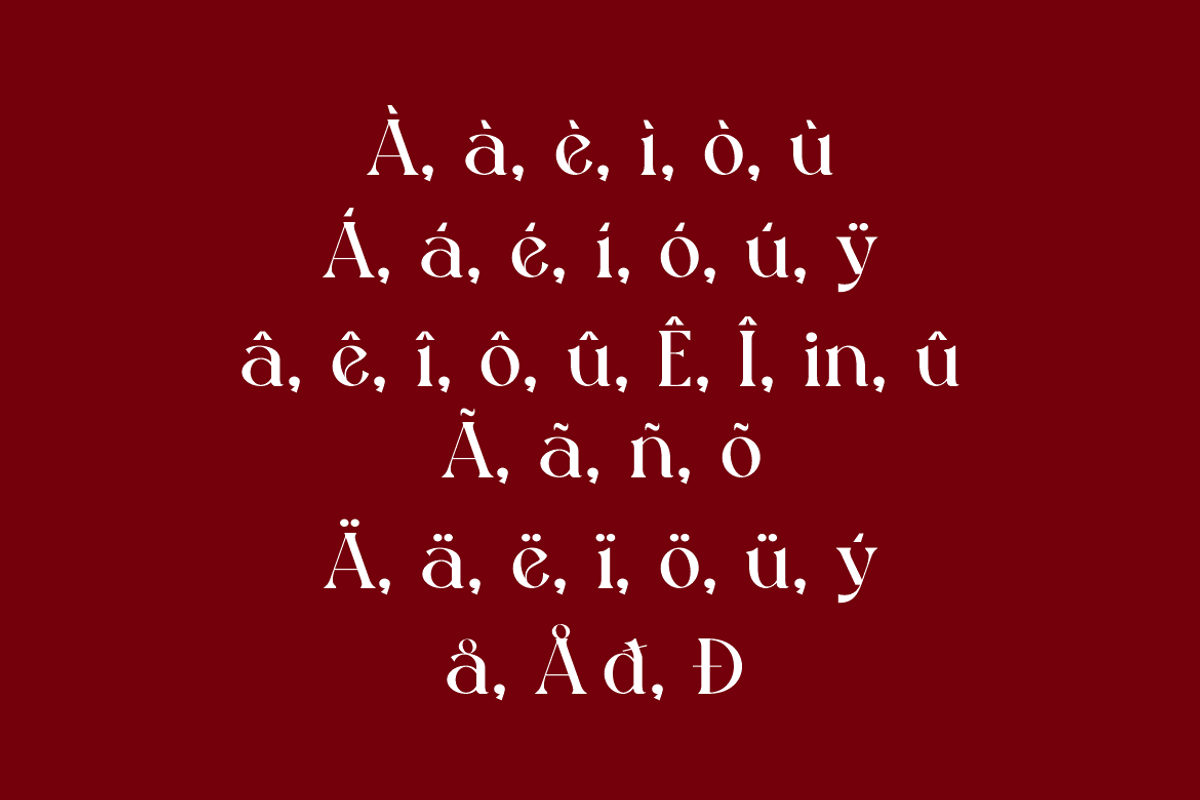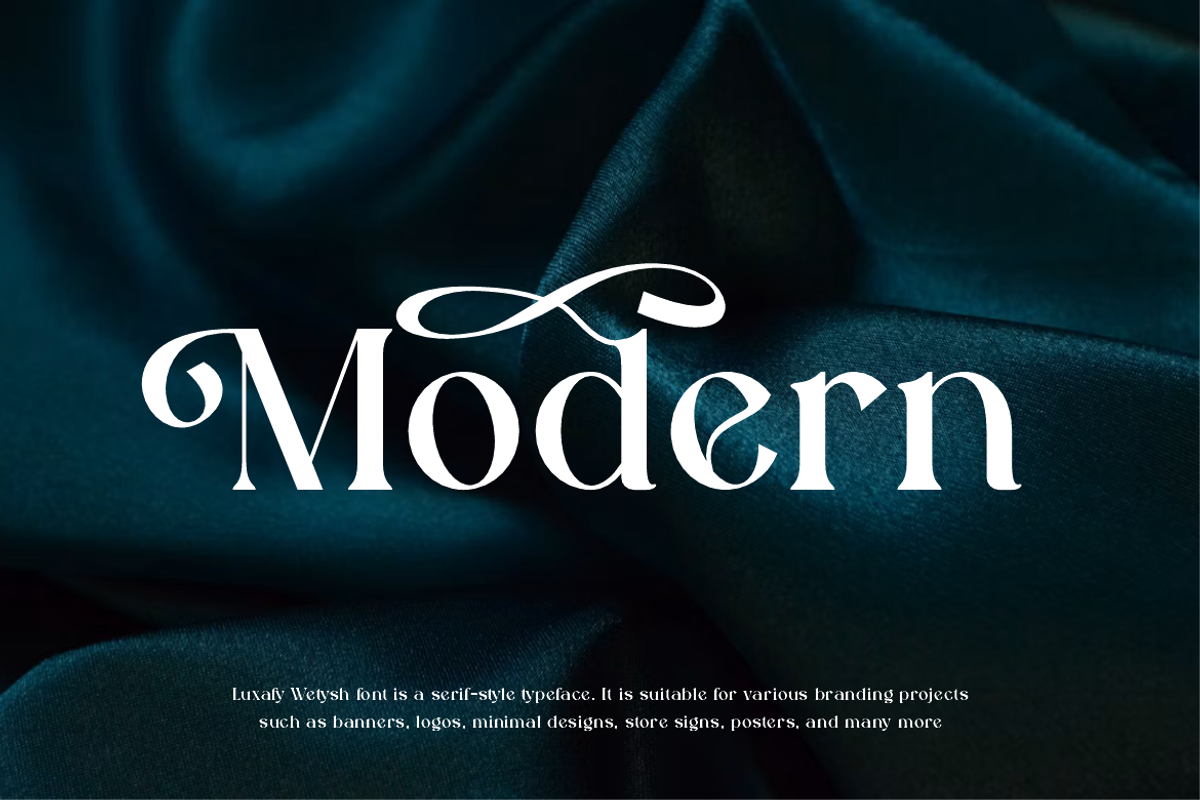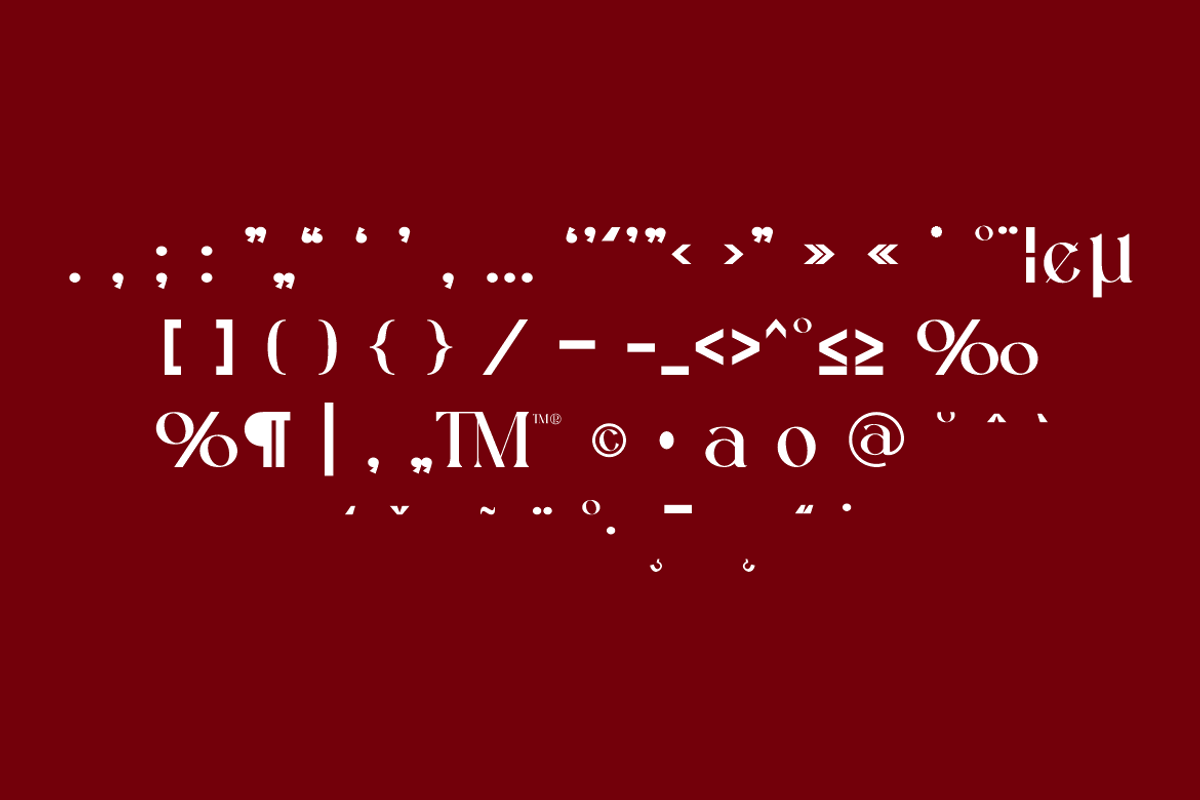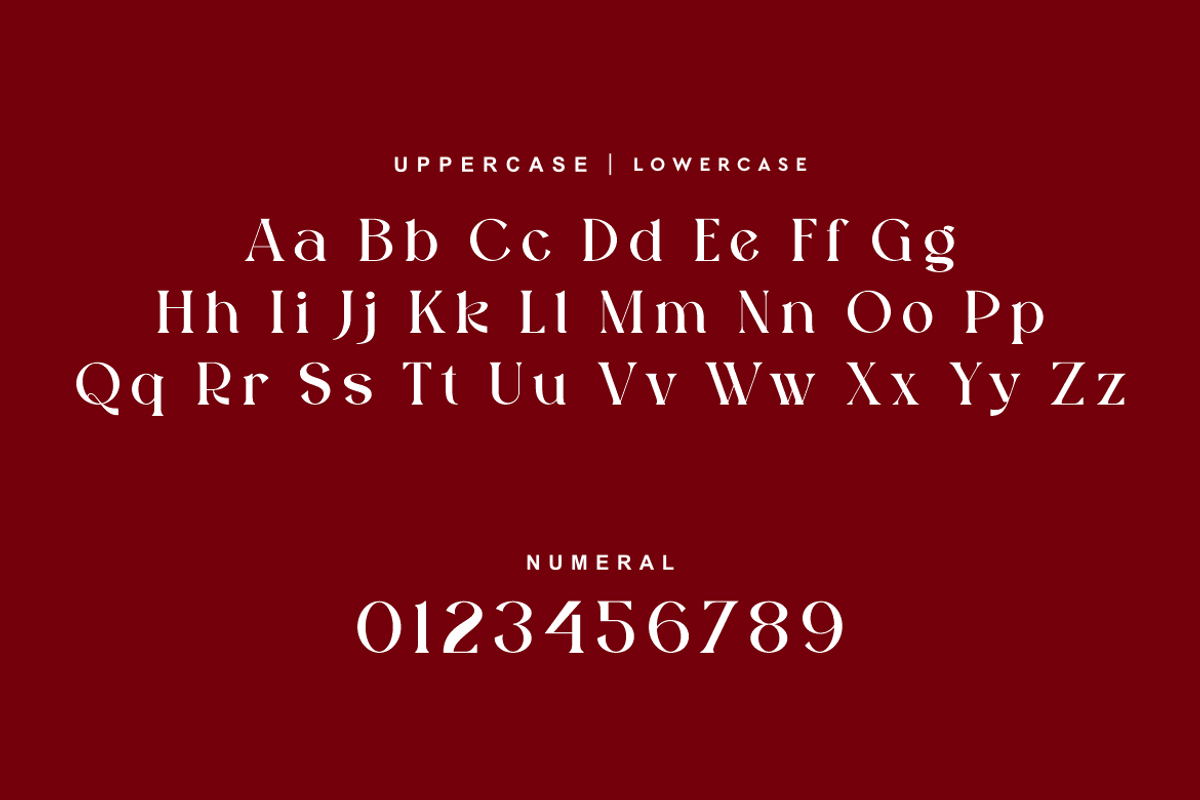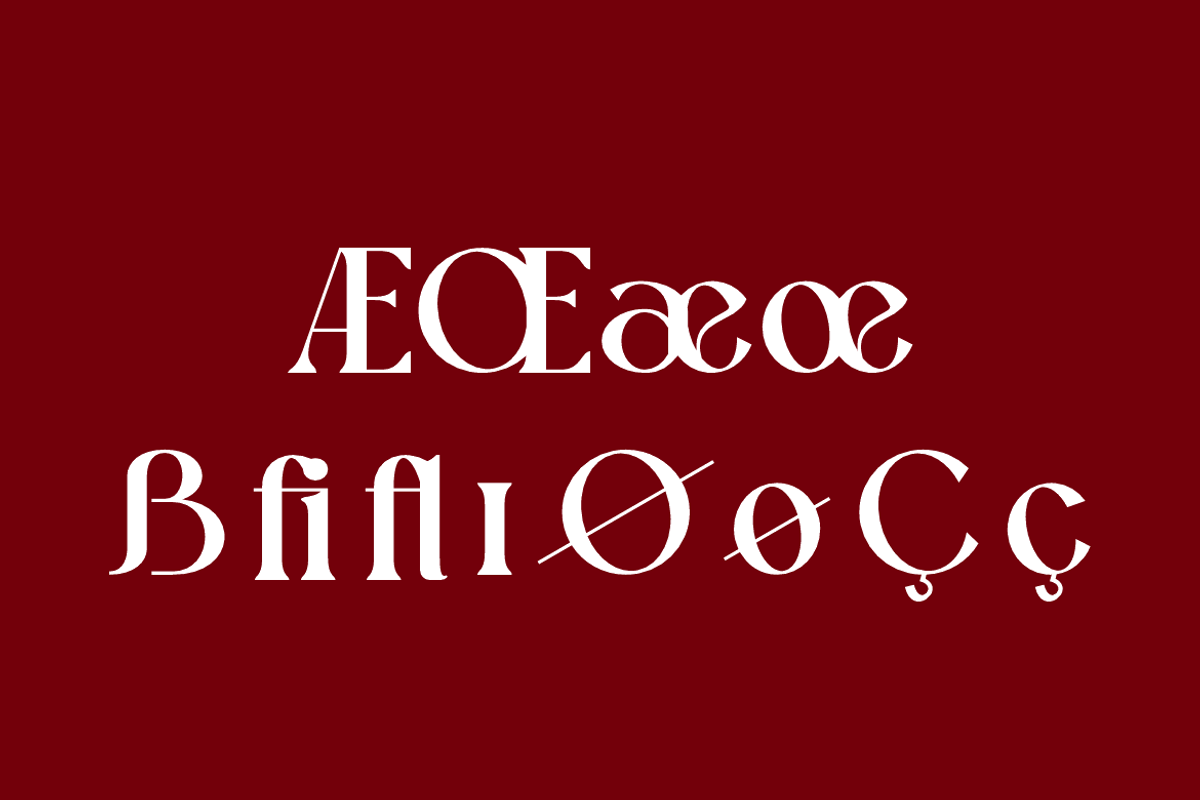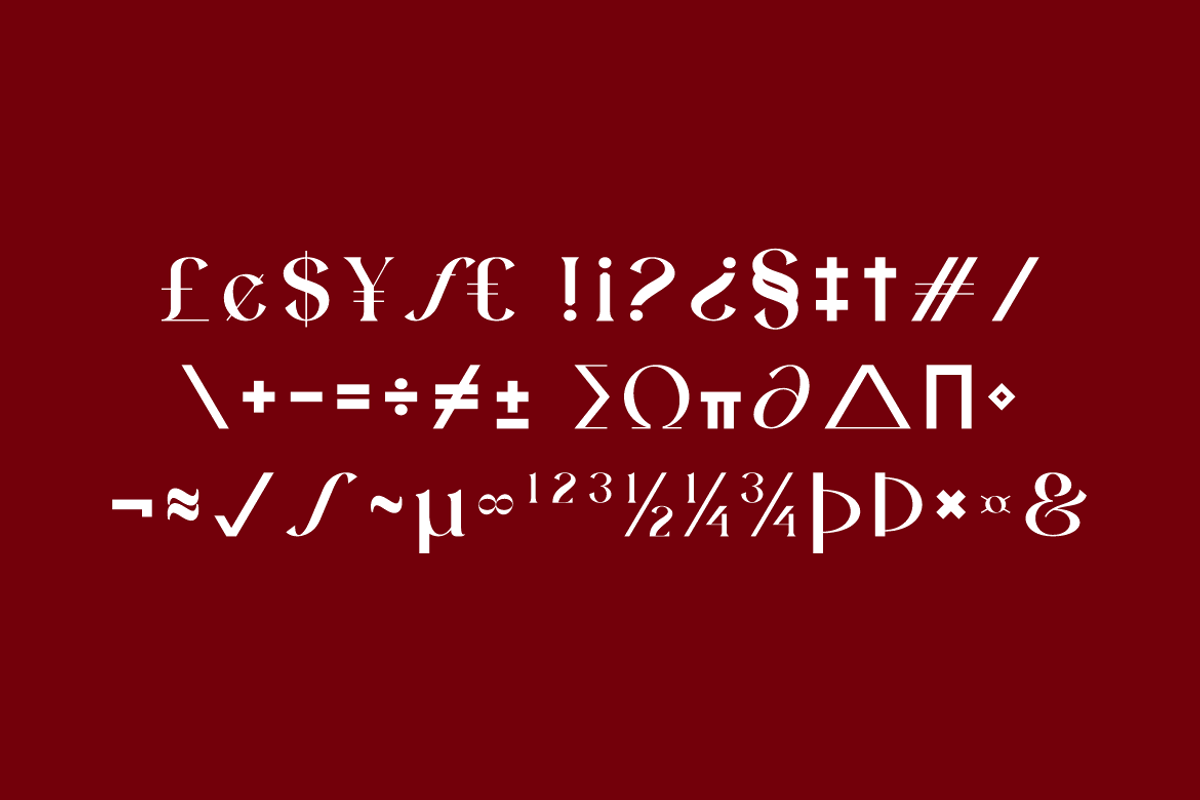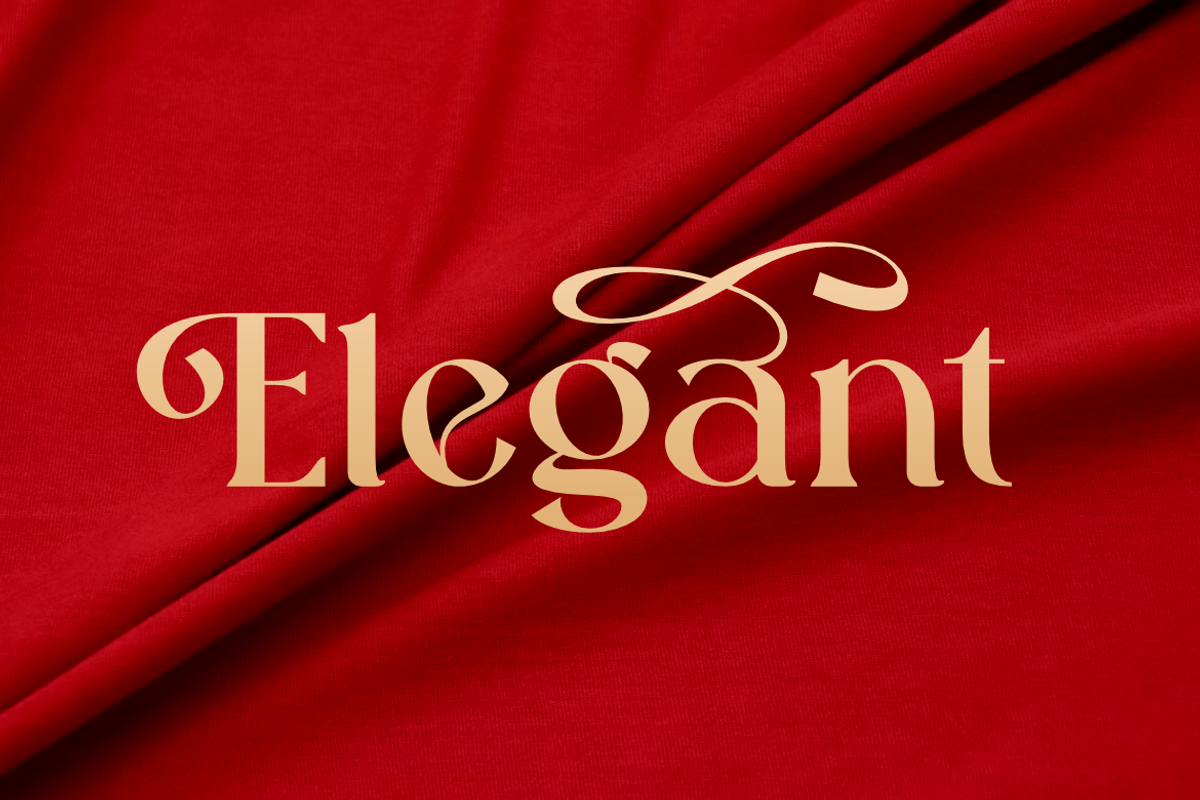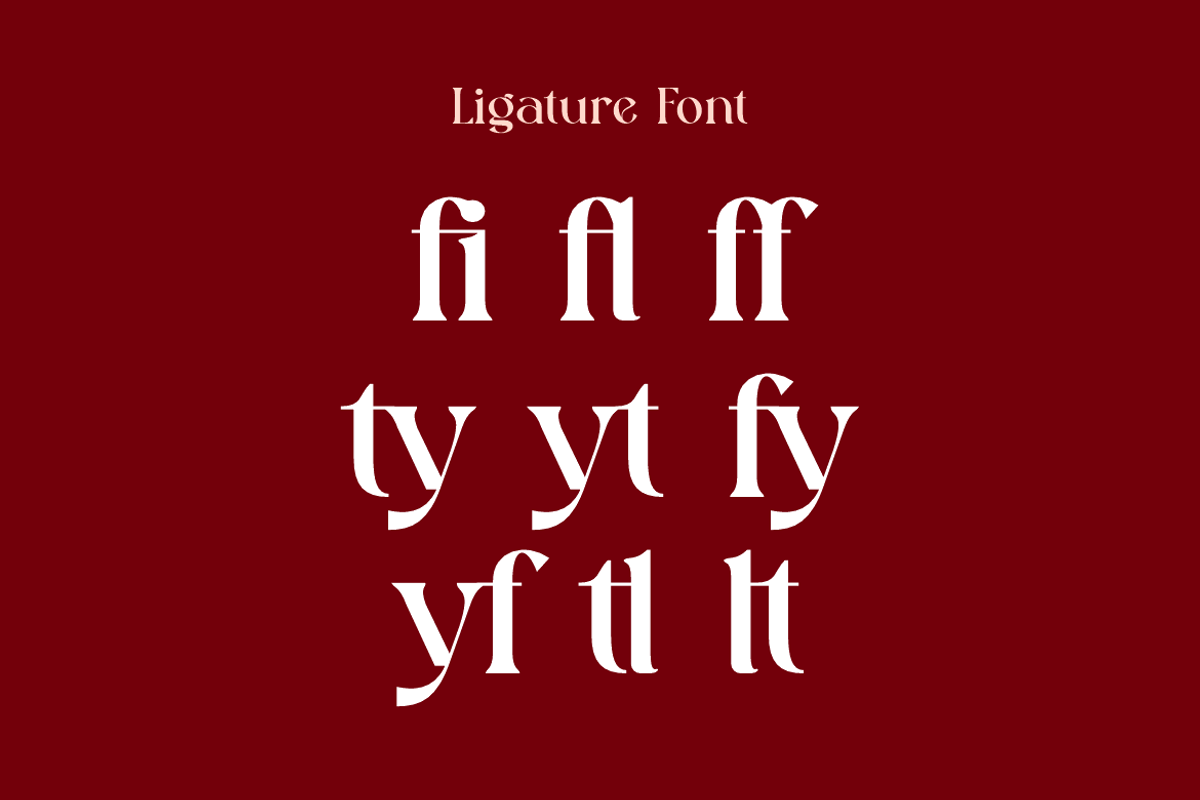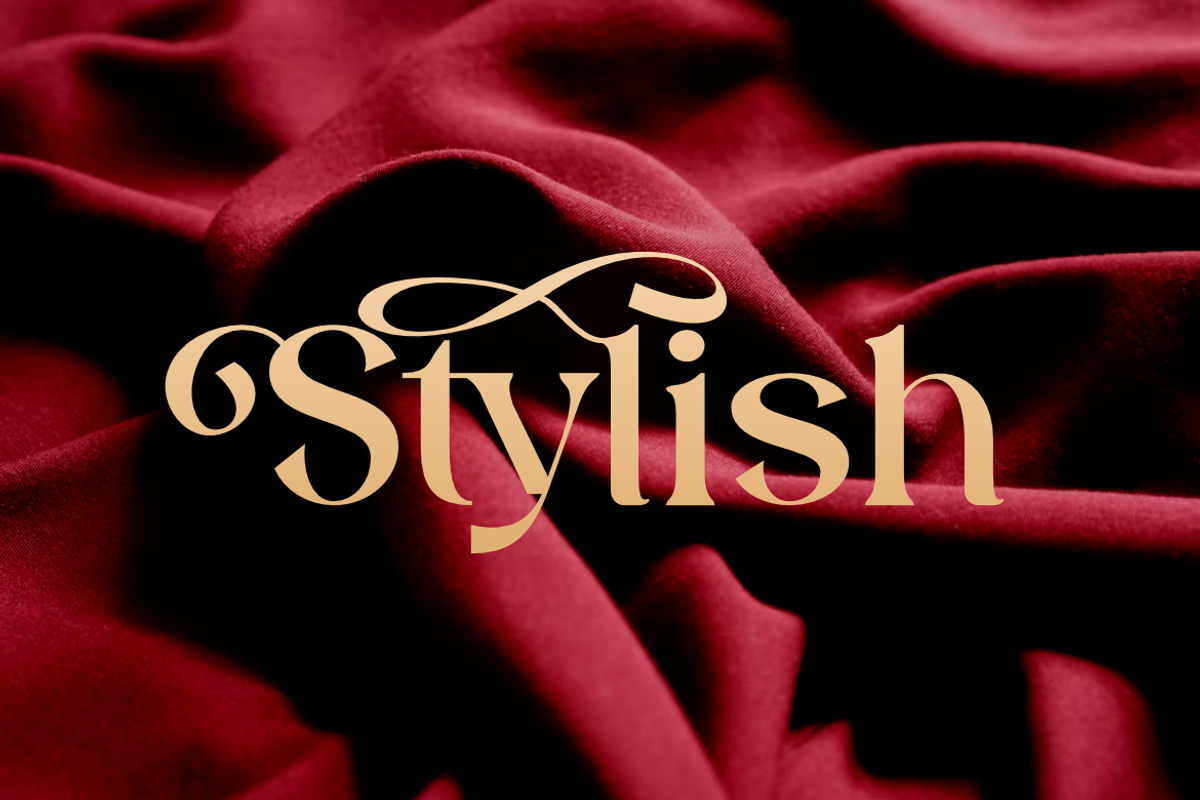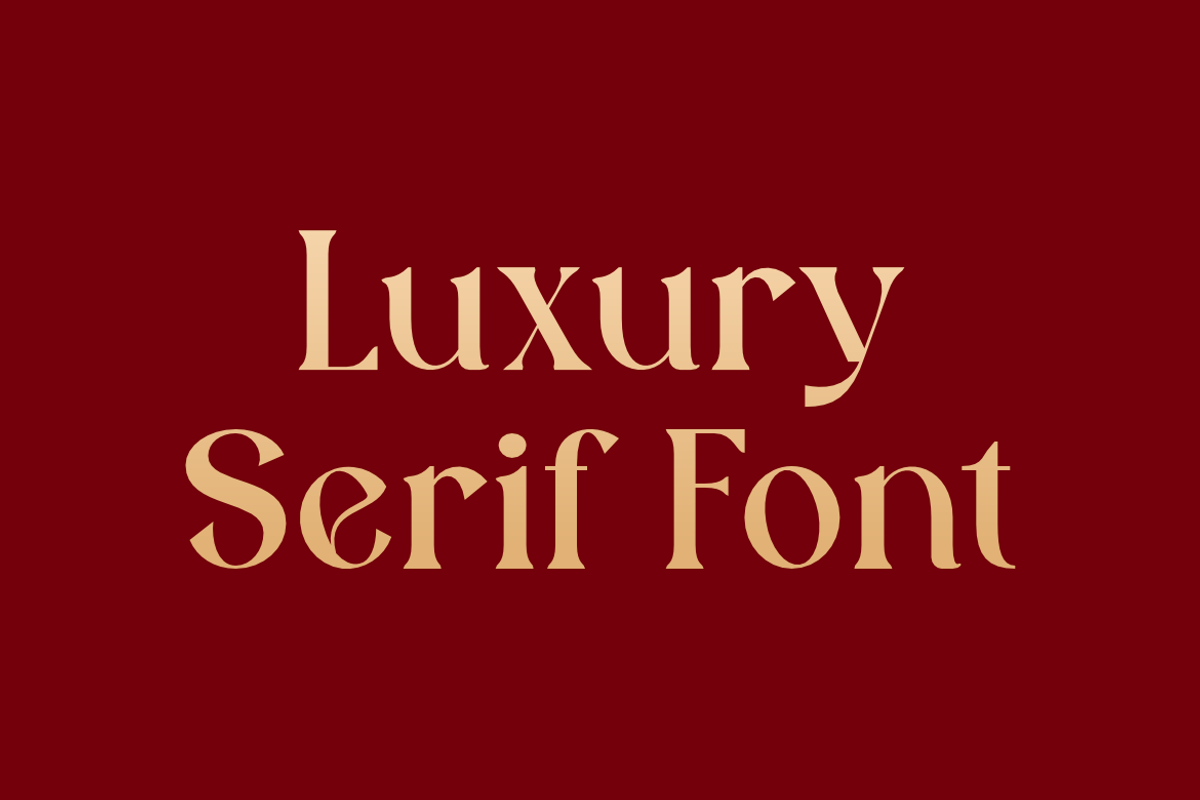
Luxafy Wetysh - Modern Luxury Font
Luxafy Wetysh Font is a serif and authentic display typeface.
It’s perfect for various branding projects such as logos, modern designs,
and more. This font stands out beautifully in a wide range of contexts.